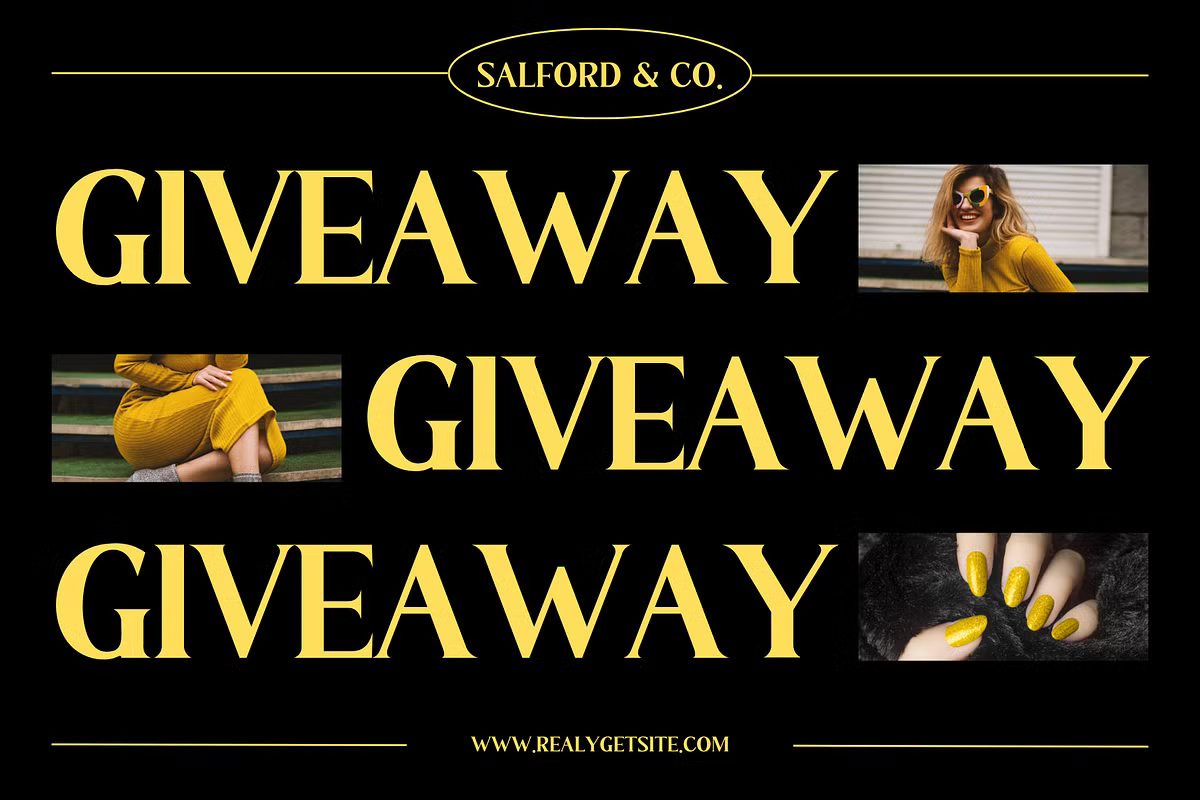
Gundogan is a bold serif with flared stems that narrow in the middle and spread at the ends. The serifs are sharp. The figures are especially strong, tall and dark, with the 2 and 7 curving at the top. A poster on the specimen repeats GIVEAWAY three times in yellow, and it still reads clearly in each row.
Best uses for Gundogan
- Magazine covers
- Sale and giveaway posters
- Corporate logos
- Book titles
- Packaging for food and drink
Gundogan is dense, so add white space and a clean sans. Inter works for text. Barlow gives a slightly narrower partner for subheads. For long reading, Source Serif 4 pairs well.
Gundogan Serif Font